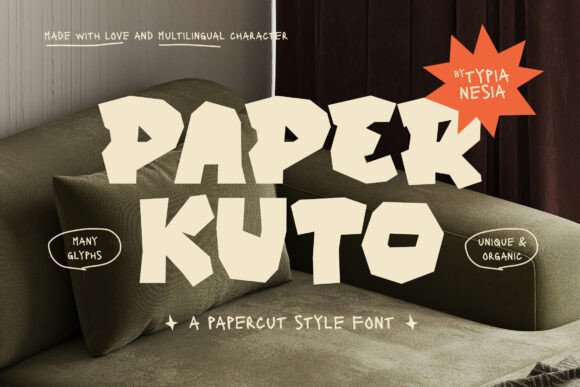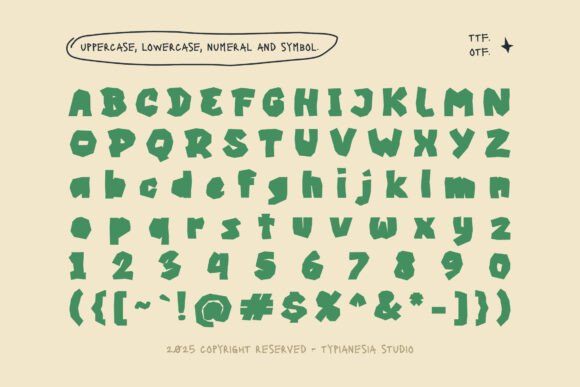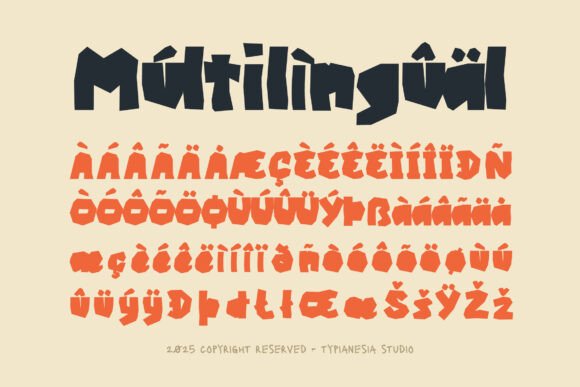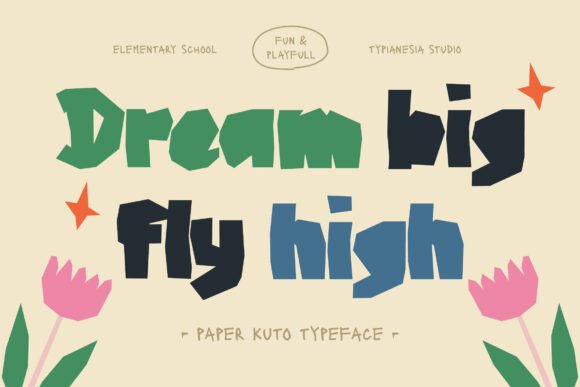
Paper Kuto Font: A Playful & Unique Craft Font for DIY Projects!
About the Paper Kuto Font
Welcome to the world of Paper Kuto Font, a typeface that will inspire your next great project. Paper Kuto is a Papercut Style Font that brings the charm of handcrafted paper art to your designs. Its unique cut-out aesthetic and playful irregularity make it stand out, delivering a natural and artistic feel that mimics real paper crafting, Ideal for DIY projects, children’s books, creative posters, greeting cards, scrapbooking, branding, packaging, game design, advertising campaigns, invitations, social media graphics, and any project that requires a unique and artistic touch.
Paper Kuto excels in headlines, short text blocks, and branding applications where its playful irregularity adds visual interest. It’s ideal for projects needing a handcrafted, slightly quirky feel, such as children’s products, craft-focused brands, or playful marketing campaigns. However, its less-than-perfect legibility makes it unsuitable for body text or UI elements requiring long reads.
Consider pairing Paper Kuto with a clean sans-serif like Lato for a balanced contrast, or a classic serif such as Garamond for a more sophisticated feel. A geometric sans-serif could also provide a modern counterpoint, enhancing Paper Kuto’s handmade charm.
The font’s overall personality is friendly and approachable, yet retains a unique artistic edge. It’s a great choice for conveying creativity, playfulness, and a handmade aesthetic.
Paper Kuto Font Usage Examples
Paper Kuto Font Example